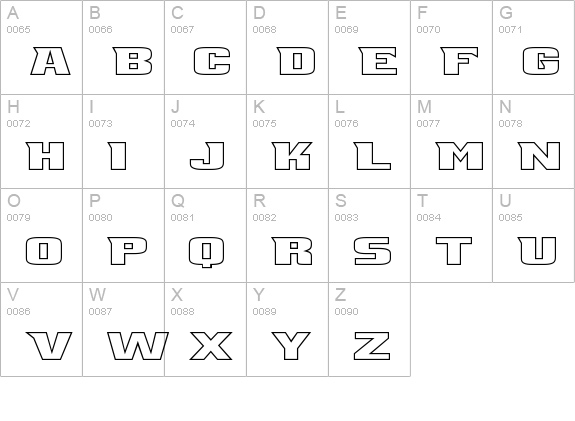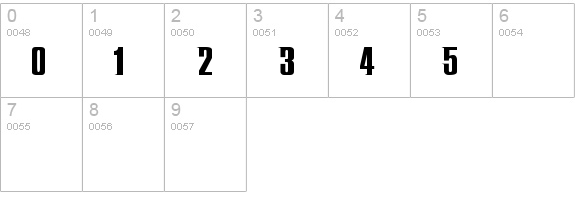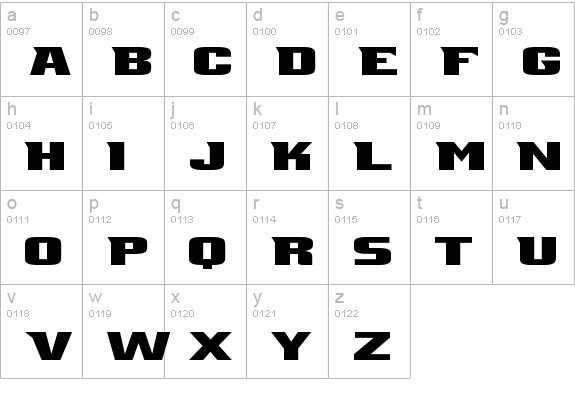
Introducing the NCAA UNLV Rebels font, a bold and energetic typeface that captures the spirit of the University of Nevada, Las Vegas Rebels athletic teams. This font is the perfect choice for any design project seeking to portray strength, determination, and a sense of camaraderie. With its sleek lines and distinctive letterforms, the NCAA UNLV Rebels font commands attention and leaves a lasting impression. From sports posters and banners to team jerseys and merchandise, this font adds an extra layer of professionalism and excitement to any visual presentation. What sets the NCAA UNLV Rebels font apart is its versatility. Whether you're designing for print or digital media, this font adapts seamlessly to any layout or application. Its clean and legible design ensures clarity and readability, even at smaller sizes, making it an ideal choice for headlines, captions, and body text alike. One of the best things about the NCAA UNLV Rebels font is that it is freely available to download at FontsMarket.com. This means that you can easily access and use this font for your personal and commercial projects without any licensing restrictions. FontsMarket.com provides a user-friendly platform where you can explore and download a vast collection of fonts, including the NCAA UNLV Rebels font, to enhance your creative endeavors. So, whether you're a designer, a sports enthusiast, or simply someone who appreciates high-quality typography, the NCAA UNLV Rebels font is an excellent choice. Download it for free at FontsMarket.com today and unleash the power of this dynamic and captivating typeface in your next design project.